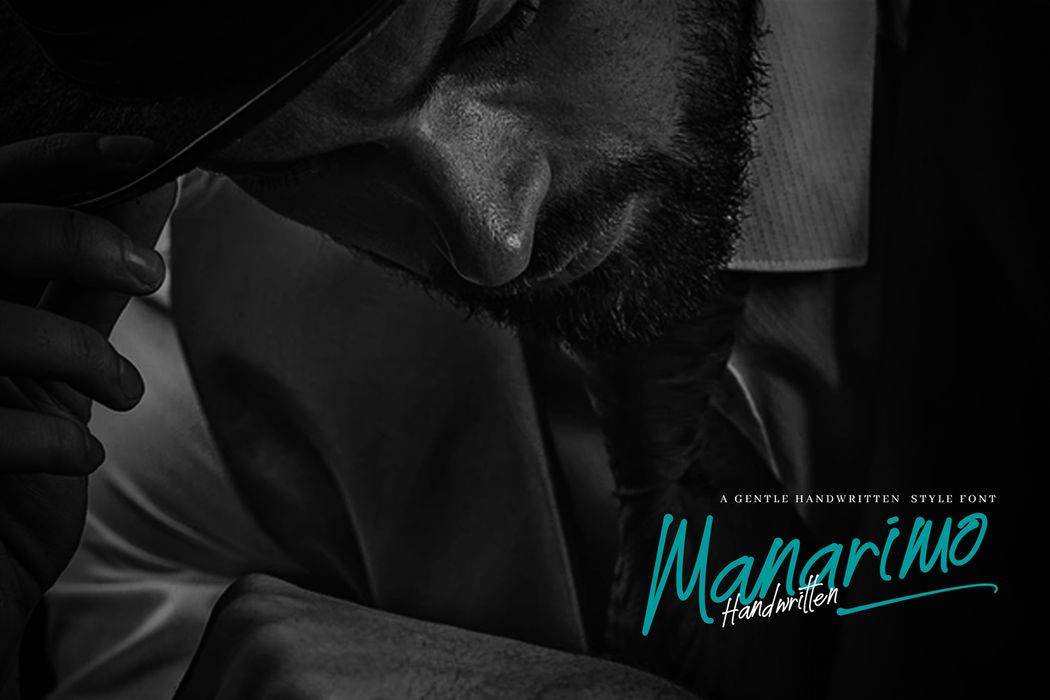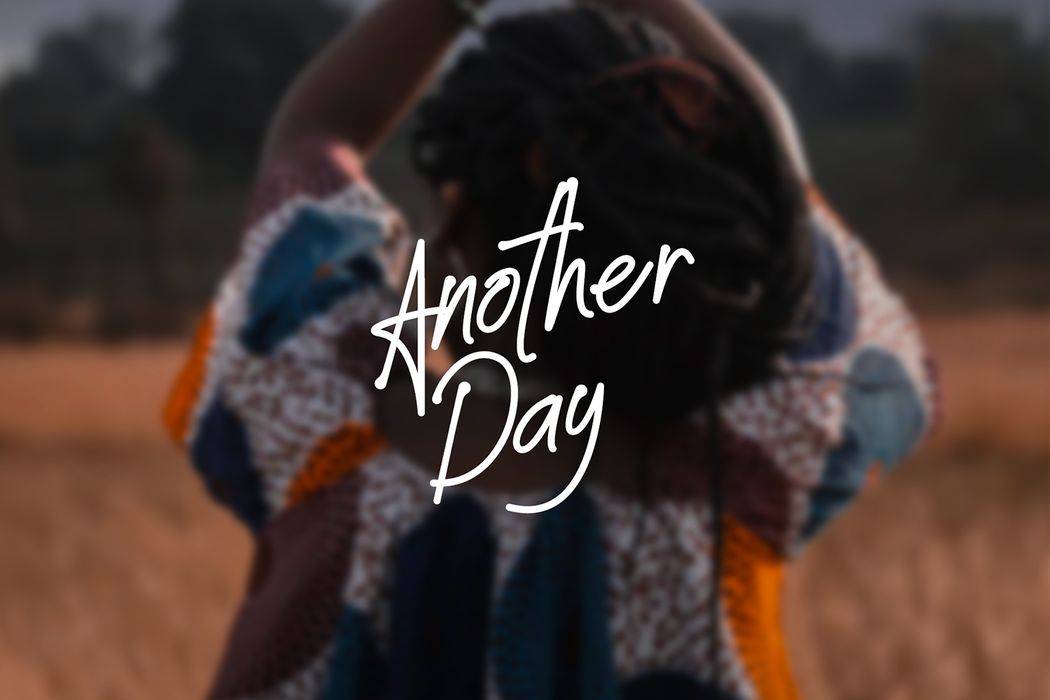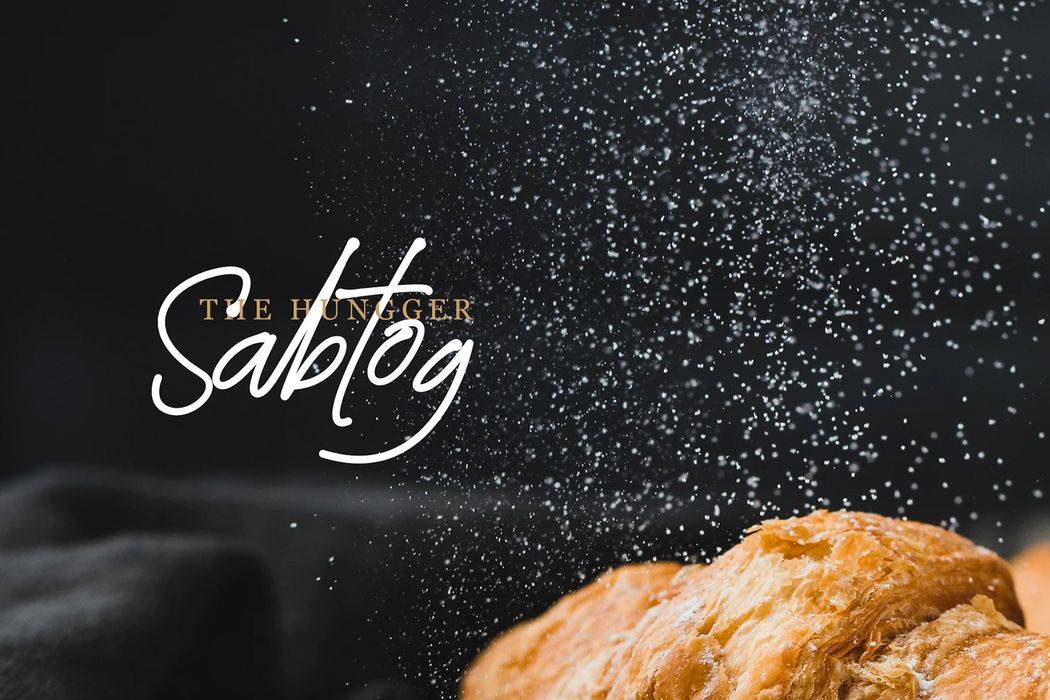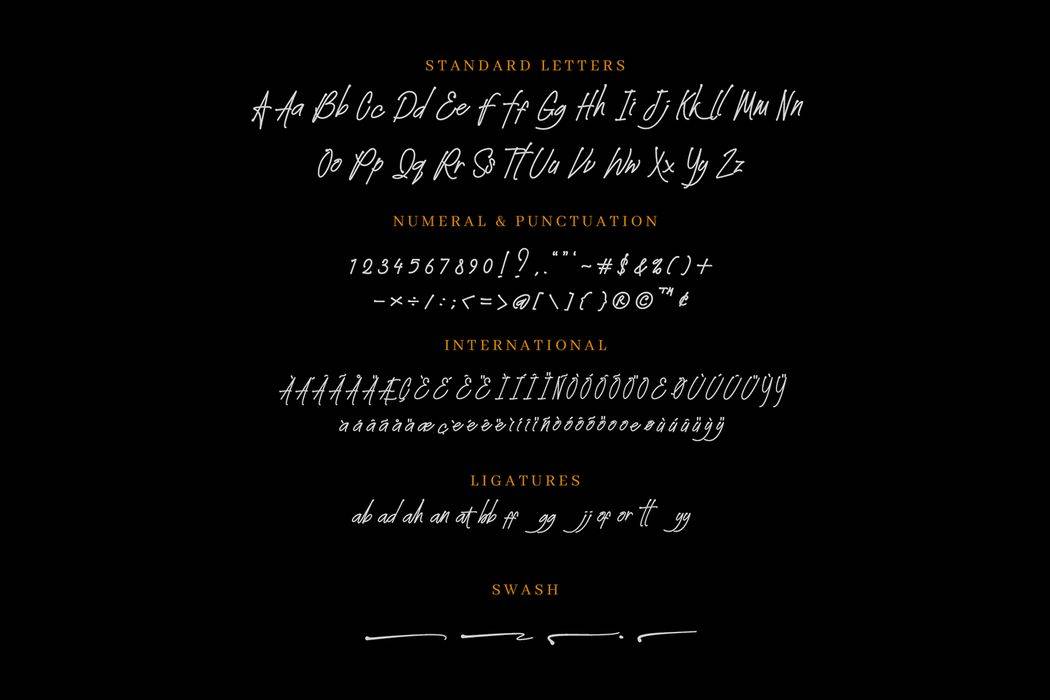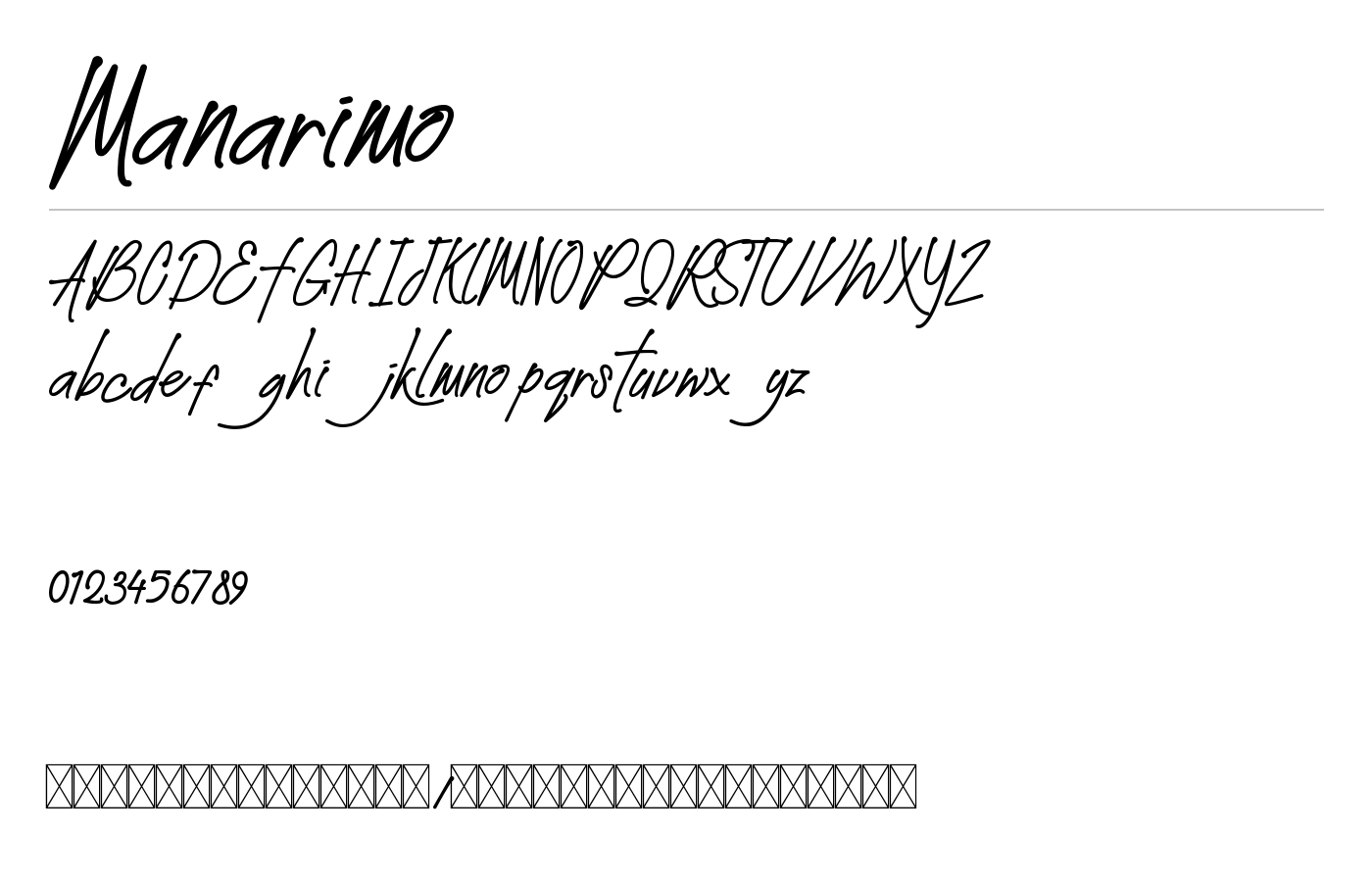
Manarimo is an elegant, handwritten script font characterized by its slender, flowing strokes and a natural, casual feel. Its tall, narrow letterforms with slight slanting capture a personal, artistic touch, making it perfect for creative branding, invitations, and stylish editorial designs that seek a unique, approachable personality. This font works well in projects that want to communicate warmth and individuality with a sleek, modern handwritten flair.
Manarimo Font
About Manarimo Font
| Font family | Manarimo Font |
| Release date | 2020-06-23 |
| Designer | Aidil Muladha |